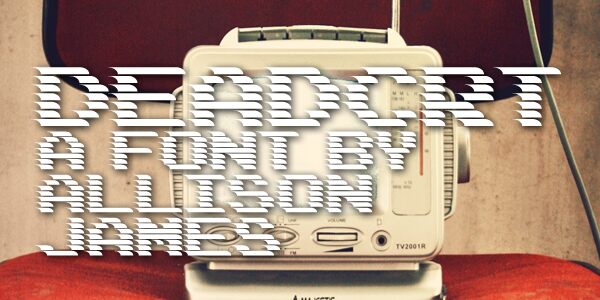
DEADCRT Regular
DEADCRT - a striking digital font that demands attention. Bold and unapologetically expanded, this typeface exudes an edgy, almost ominous presence.
Crafted by the design mavens at Chequered Ink, DEADCRT is a far cry from the dainty, delicate fonts that populate the digital landscape. Its sharp, angular lines and the distinct sense of weight create an impactful visual statement, perfect for commanding headlines, bold branding, or any design that requires a dose of grit and intensity.
Whether used for movie posters, video game logos, or attention-grabbing social media graphics, DEADCRT is a font that refuses to be ignored, leaving a lasting impression with its powerful, unyielding aesthetic.